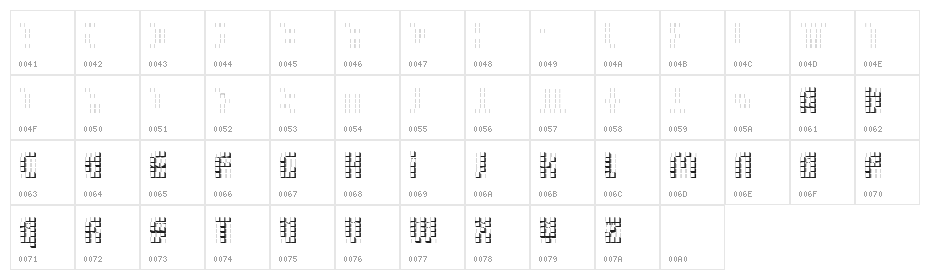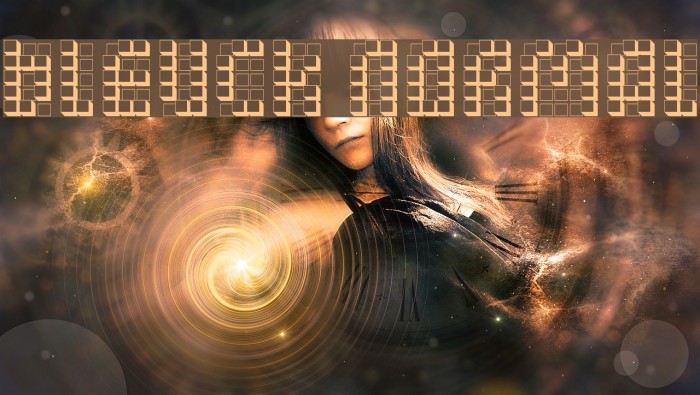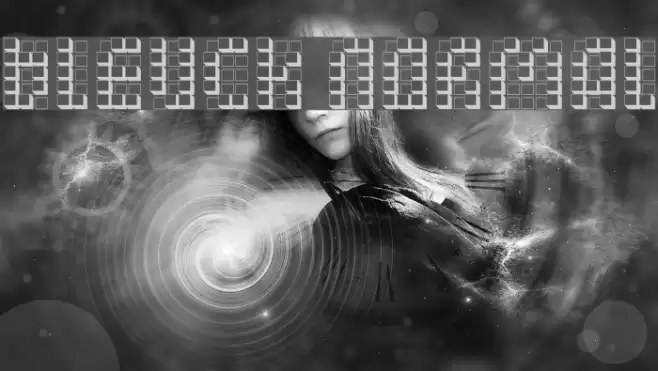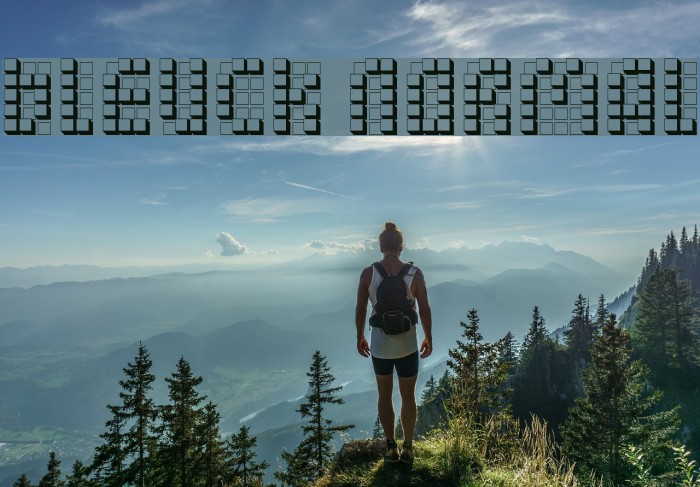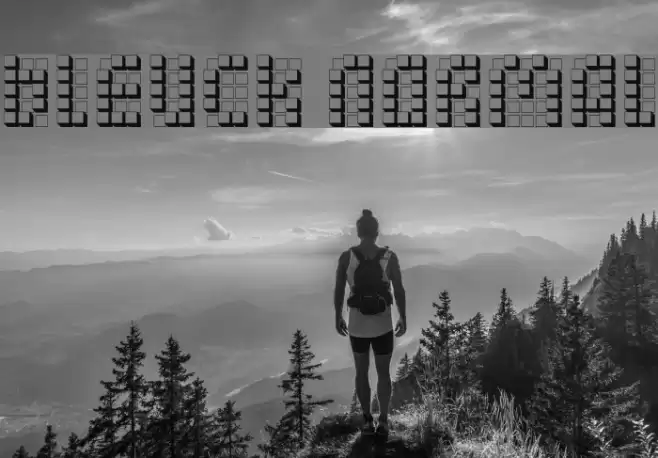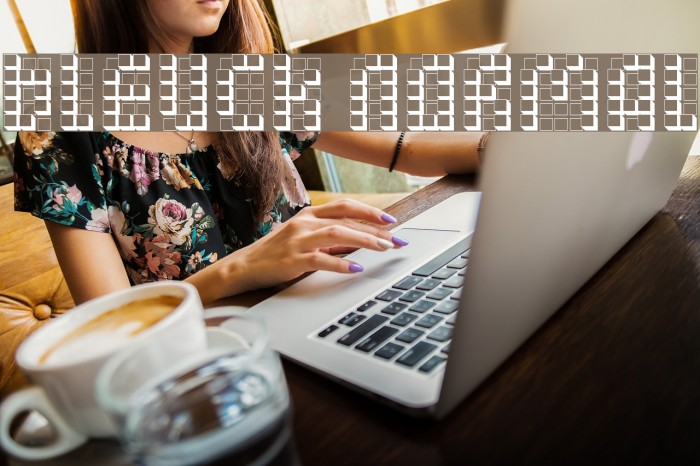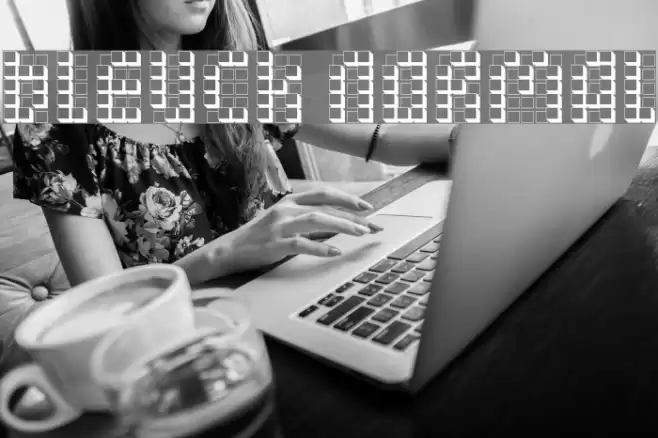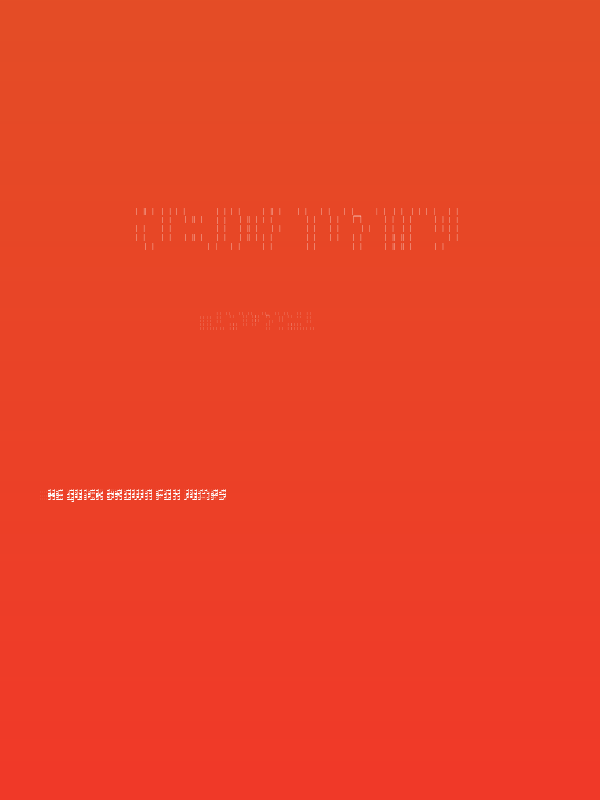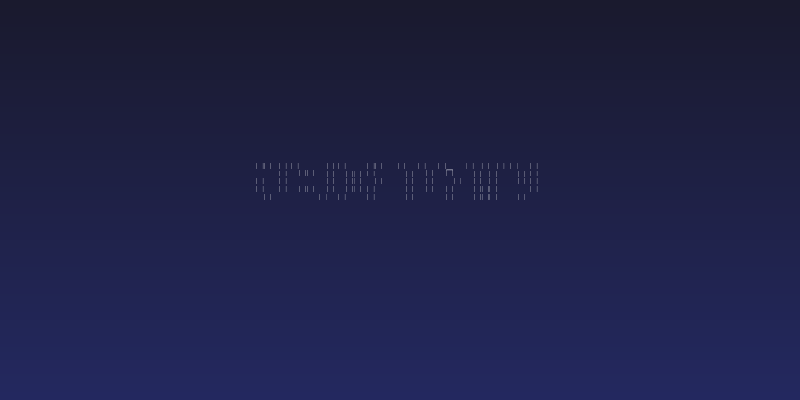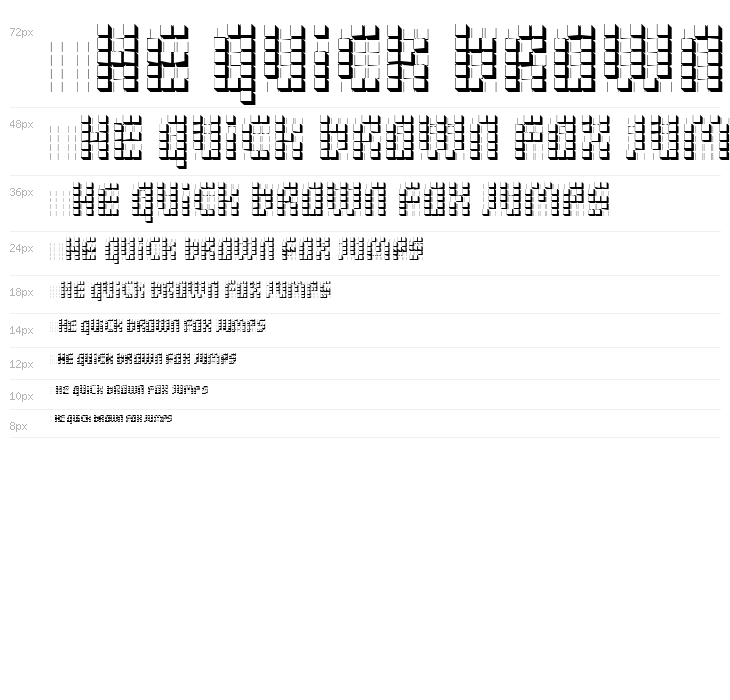
bleuck normal Font
bleuck normal Description
This font features a unique and playful design, characterized by its blocky, pixelated appearance. Each character is constructed from a grid of squares, giving it a digital, retro feel reminiscent of early video game graphics. The bold outlines enhance the visibility of each letter, making them stand out distinctly. The uppercase letters are particularly striking, with a consistent height and width that maintain uniformity across the alphabet. The font's geometric style is both modern and nostalgic, appealing to projects that aim to evoke a sense of fun and creativity.